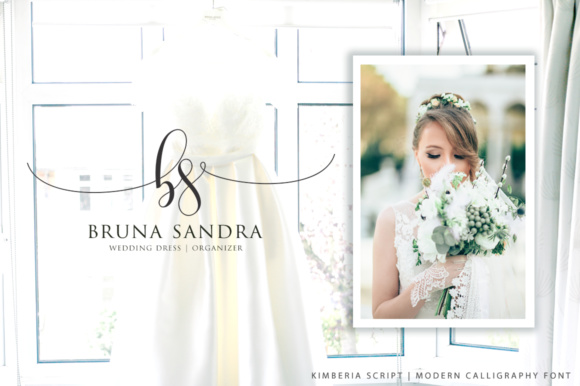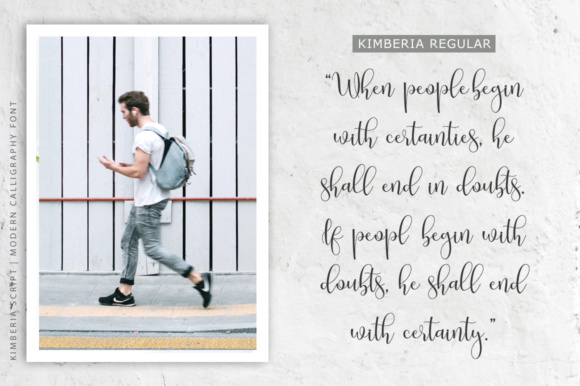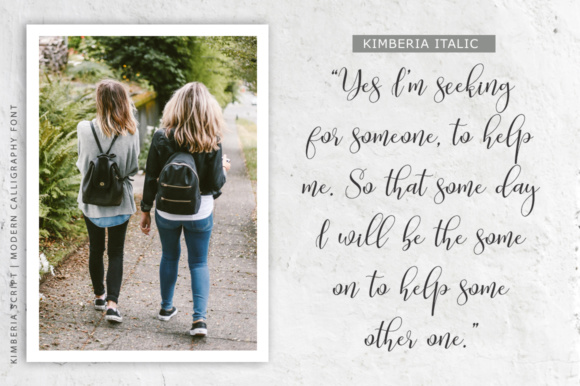
Introduction to Kimberia Script Font
Kimberia is a modern calligraphy typeface, including a regular and a italic version.
With itโs beautiful swashes, Kimberia will give a feminine feel to your design Kimberia can be used for various purposes such as: logos, product packaging, wedding invitations, branding, and more.